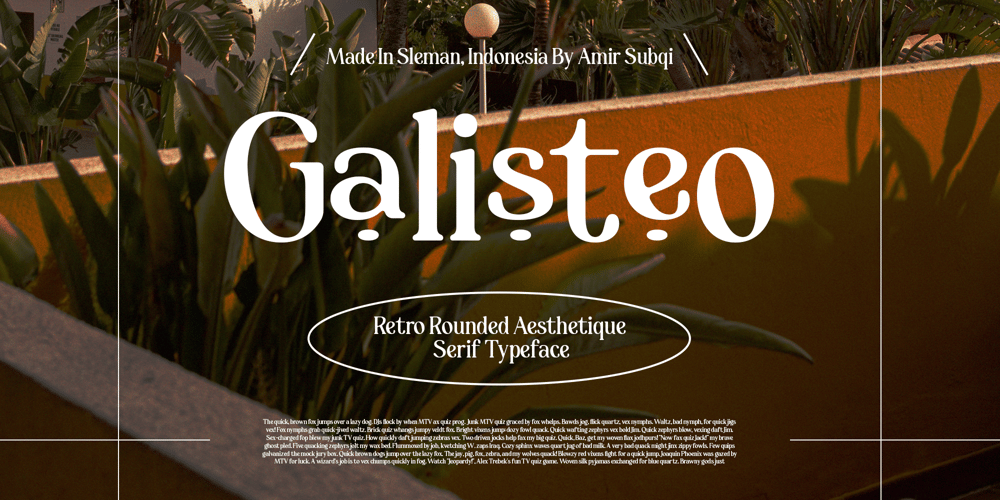
Galisteo Font Family was designed by Amir Subqi Setiaji and published by Subqi Studio. Galisteo contains 1 styles and family package options. Introducing Galisteo, a subtle retro-aesthetic serif typeface. This font will be suitable for display design projects and creative ideas that need to stand out.